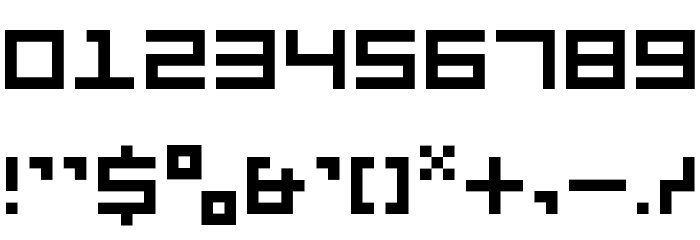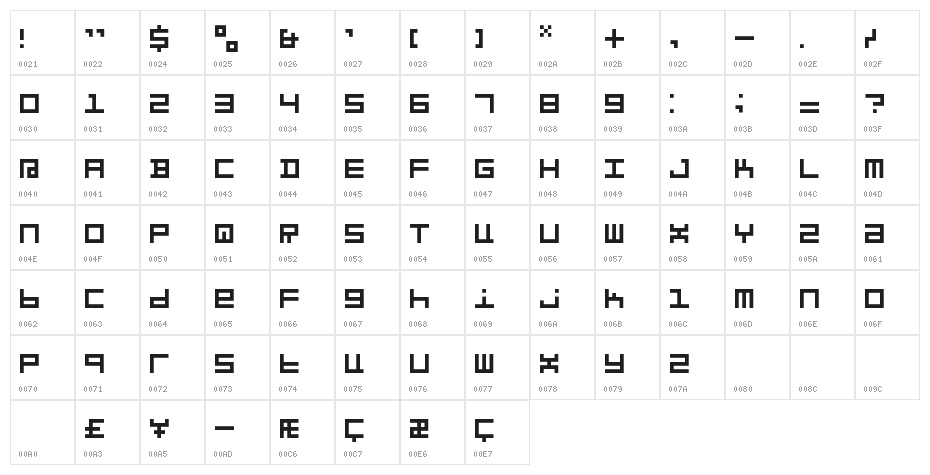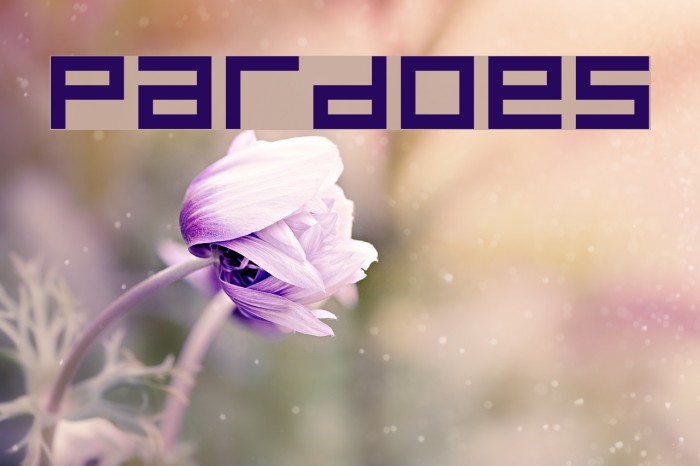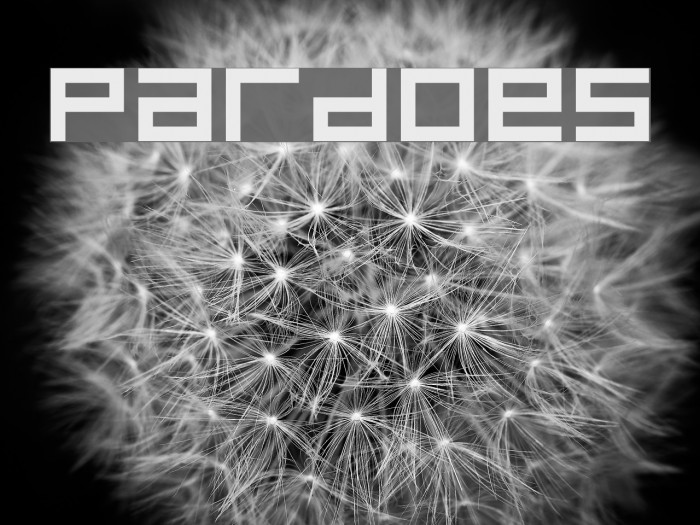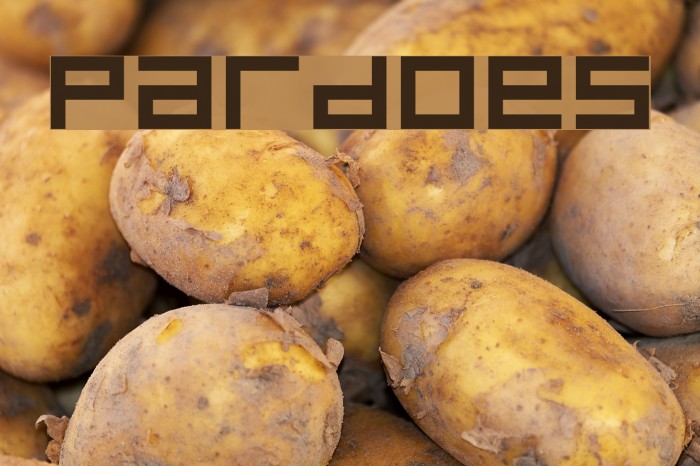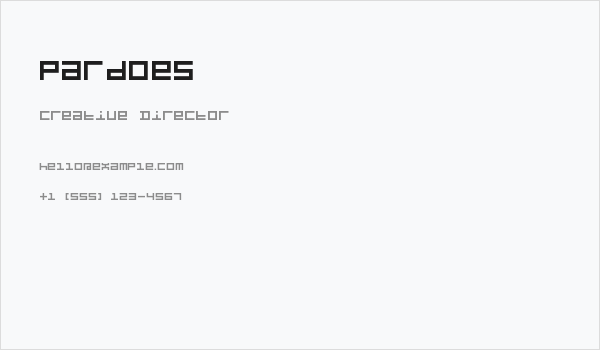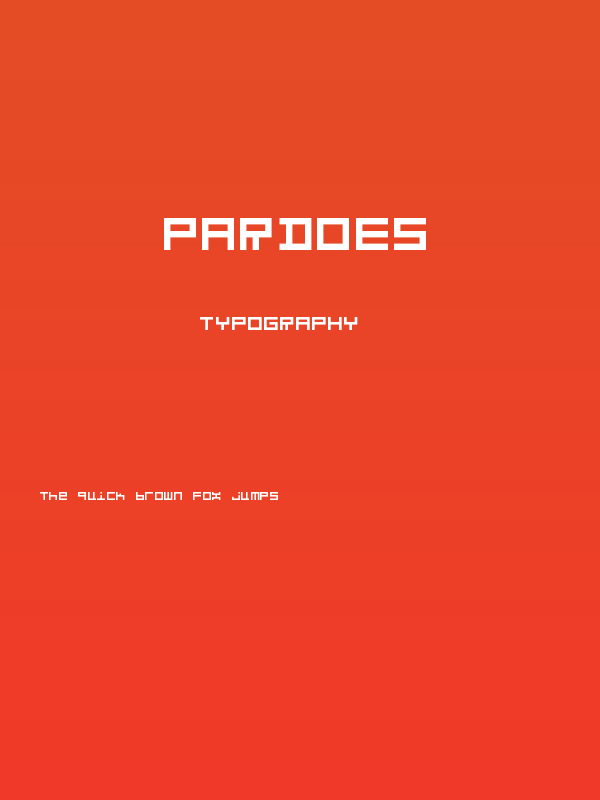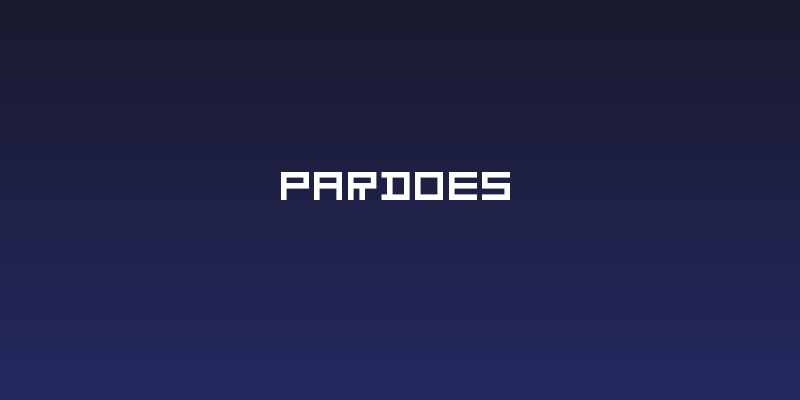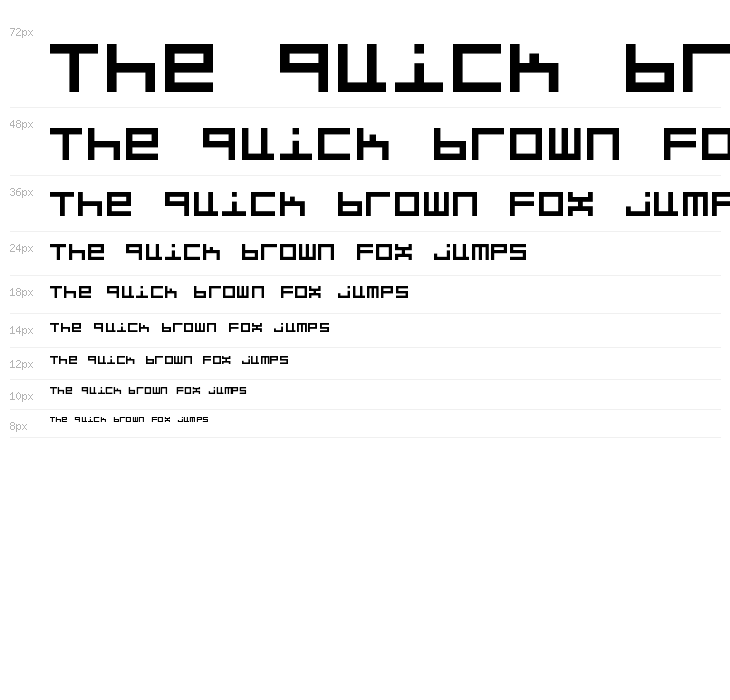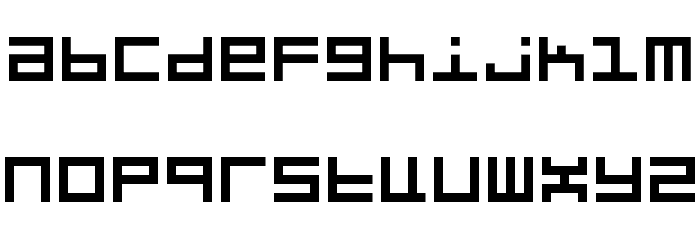
Pardoes Font
Pardoes Description
This font features a bold, geometric design with a distinctly modern and digital aesthetic. Each character is constructed with sharp, angular lines and consistent stroke widths, creating a uniform and cohesive appearance. The uppercase and lowercase letters maintain a blocky, pixel-like style that is reminiscent of early computer graphics or digital displays. The numerals and special characters follow the same design principles, ensuring visual consistency across all elements. This font's structured and mechanical look makes it ideal for projects that require a futuristic or technological feel.
PARDOES UPPERCASE
PARDOES LOWERCASE
PARDOES OTHER CHARS